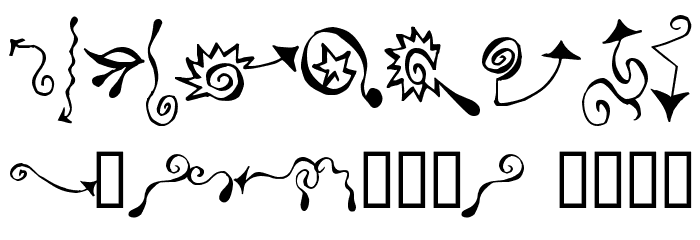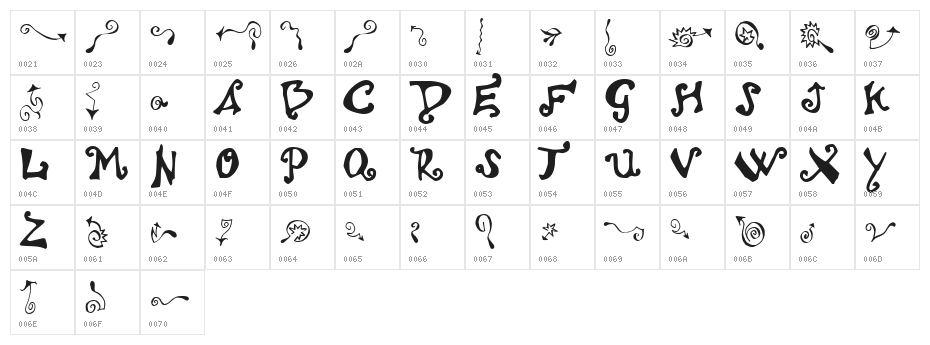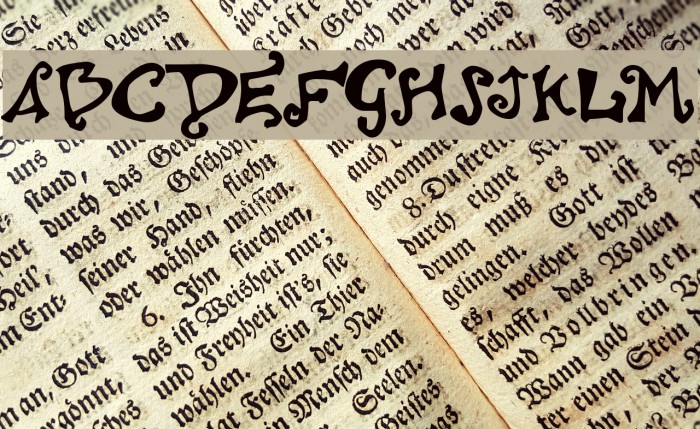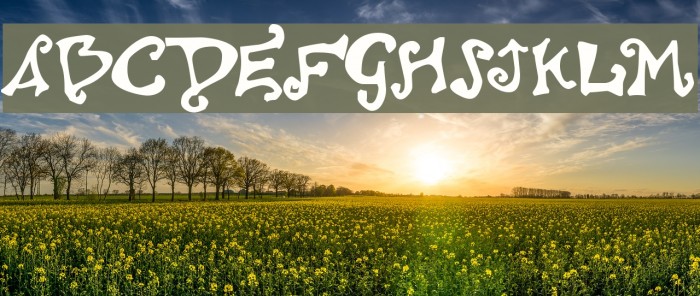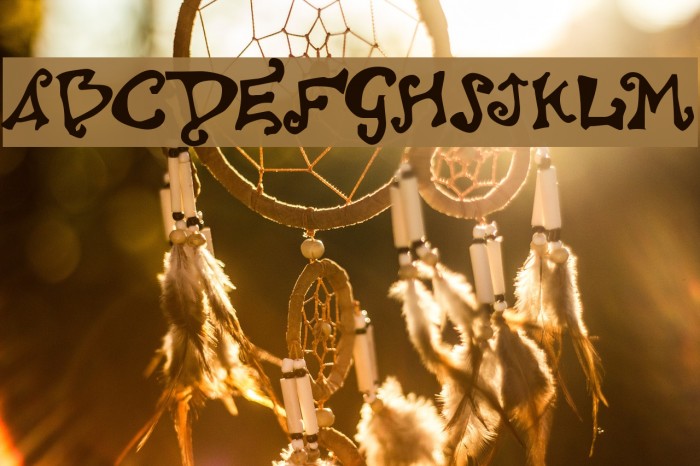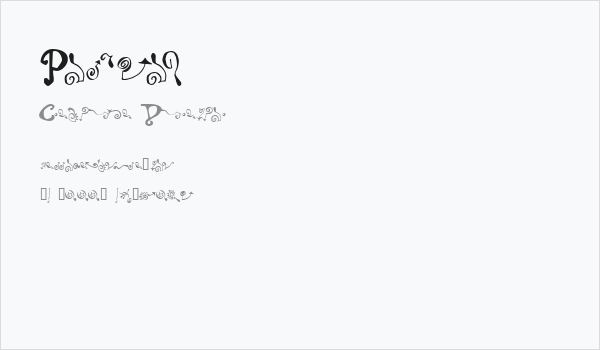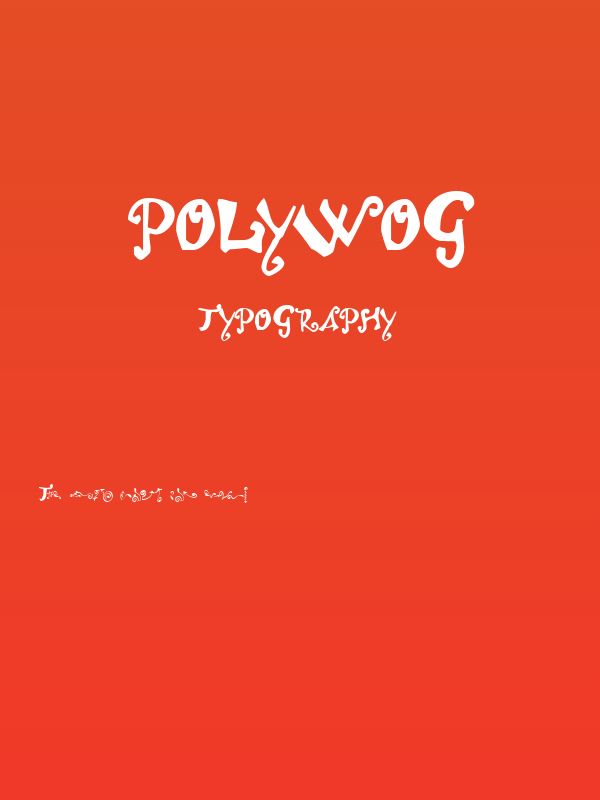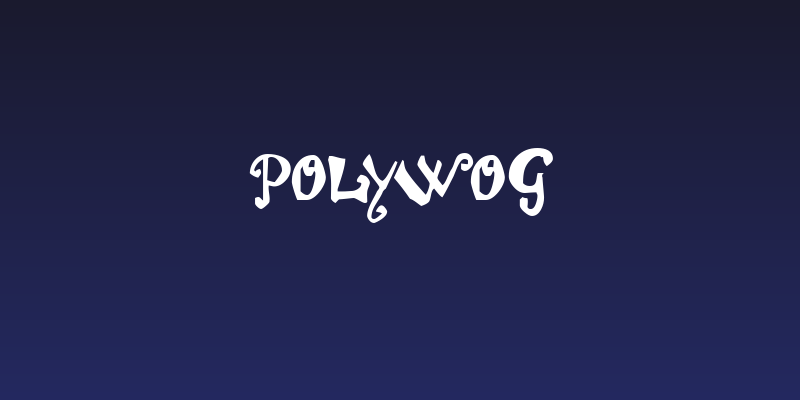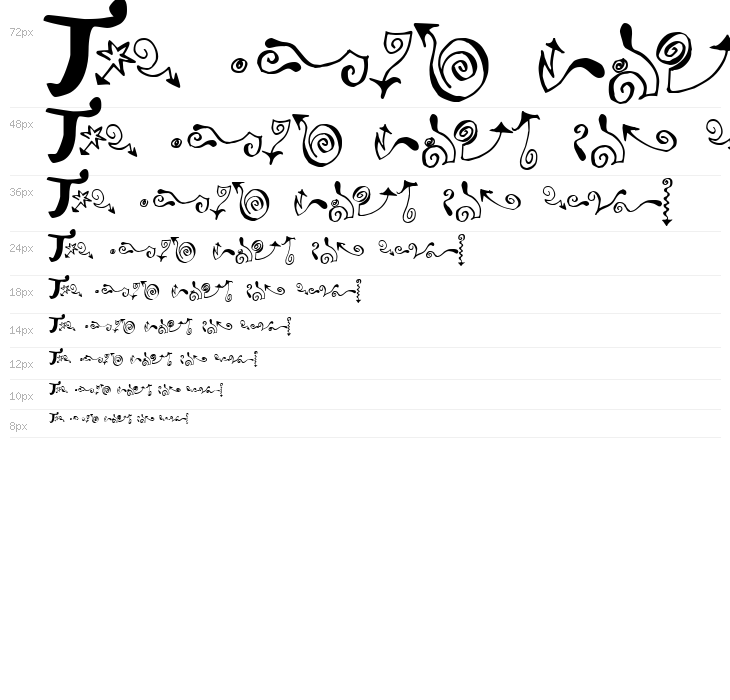
Polywog Font
Polywog Description
This font features a whimsical and playful design, characterized by its bold and exaggerated curves. Each letter is uniquely crafted with decorative elements that give it a lively and dynamic appearance. The uppercase letters are particularly striking, with swirling lines and unexpected angles that create a sense of movement. The font's overall style is reminiscent of a cartoon or fantasy theme, making it ideal for projects that require a fun and imaginative touch. The characters are well-spaced, allowing for readability despite their intricate designs.
| Overall Style | Whimsical and playful |
| Proposed Projects | Ideal for children's books, fantasy-themed posters, playful branding, and creative invitations. |